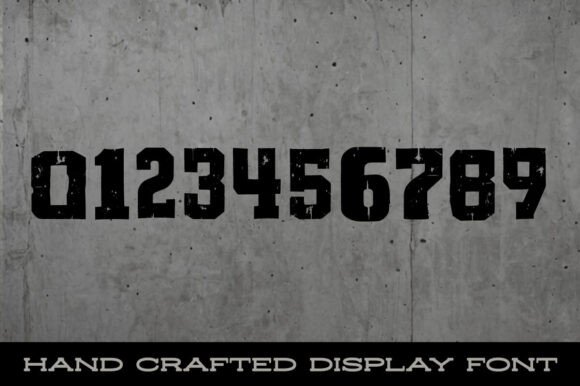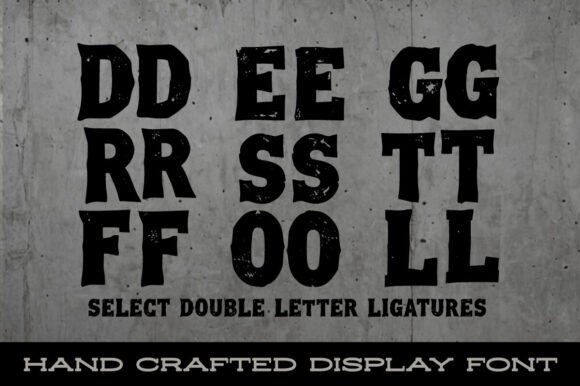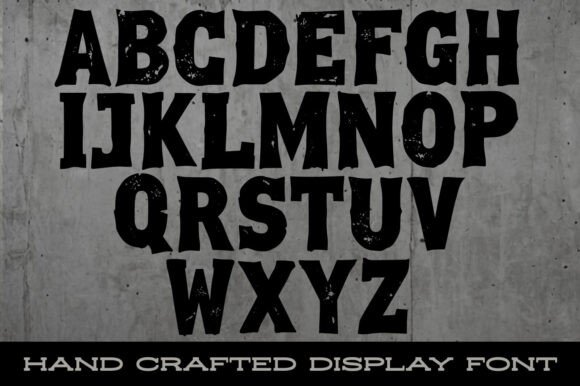
Introducing CrustForge: The Bold and Rugged Vintage-Style Font
In the world of typography, fonts play a crucial role in conveying the tone and personality of a design. For projects that demand attention and evoke a sense of industrial nostalgia, CrustForge is the perfect choice. This bold and rugged vintage-style font is forged with character and grit, making it ideal for designers and crafters looking to add a raw, handcrafted aesthetic to their work.
The Characteristics of CrustForge
CrustForge boasts a distressed texture that gives it a unique, weathered charm. Its commanding presence is perfect for making a statement, whether used for logos, posters, or headlines. The font’s rugged, industrial feel is reminiscent of a bygone era, evoking memories of worn, vintage signs and distressed metalwork.
Key Features of CrustForge
- Distressed Texture: CrustForge’s distressed texture gives it a worn, vintage look that’s perfect for designs that need a touch of industrial nostalgia.
- Bold and Commanding Presence: The font’s bold, rugged design makes it perfect for headlines, logos, and other design elements that need to grab attention.
- Raw, Handcrafted Aesthetic: CrustForge combines strength with a timeless, weathered charm that’s perfect for designers and crafters looking to add a touch of authenticity to their work.
- Versatile: Whether used for logos, posters, or headlines, CrustForge is a versatile font that can be used in a wide range of design projects.
Using CrustForge in Your Designs
CrustForge is perfect for designers and crafters looking to add a touch of industrial nostalgia to their work. Here are a few ways you can use CrustForge in your designs:
- Logos: Use CrustForge to create a bold, rugged logo that’s perfect for industrial or vintage-inspired brands.
- Posters: Add a touch of industrial nostalgia to your posters with CrustForge’s distressed texture and commanding presence.
- Headlines: Use CrustForge to create bold, attention-grabbing headlines that are perfect for a wide range of design projects.
- Signage: CrustForge’s distressed texture and rugged design make it perfect for creating vintage-inspired signs and banners.
Tips for Getting the Most Out of CrustForge
Here are a few tips for getting the most out of CrustForge:
- Experiment with Different Colors: CrustForge’s distressed texture looks great in a wide range of colors, from bold and bright to muted and earthy.
- Combine with Other Fonts: CrustForge pairs well with a wide range of fonts, from clean and modern sans-serifs to bold and rugged script fonts.
- Use it Sparingly: CrustForge is a bold font that can be overwhelming if used too much. Use it sparingly to create a focal point in your design.
CrustForge is a bold and rugged vintage-style font that’s perfect for designers and crafters looking to add a touch of industrial nostalgia to their work. Its distressed texture and commanding presence make it ideal for projects that demand attention, while its raw, handcrafted aesthetic combines strength with a timeless, weathered charm. Whether used for logos, posters, or headlines, CrustForge is a versatile font that’s sure to bring a unique touch to your designs.